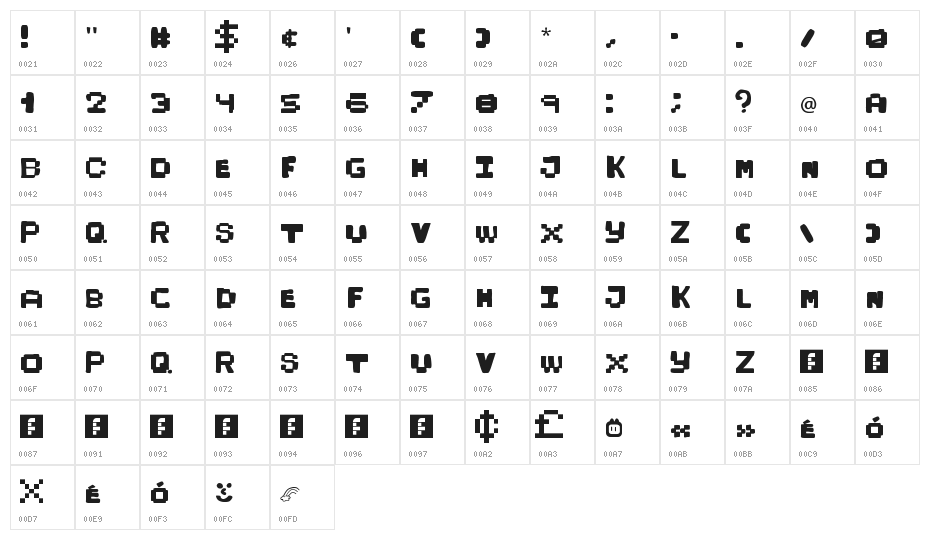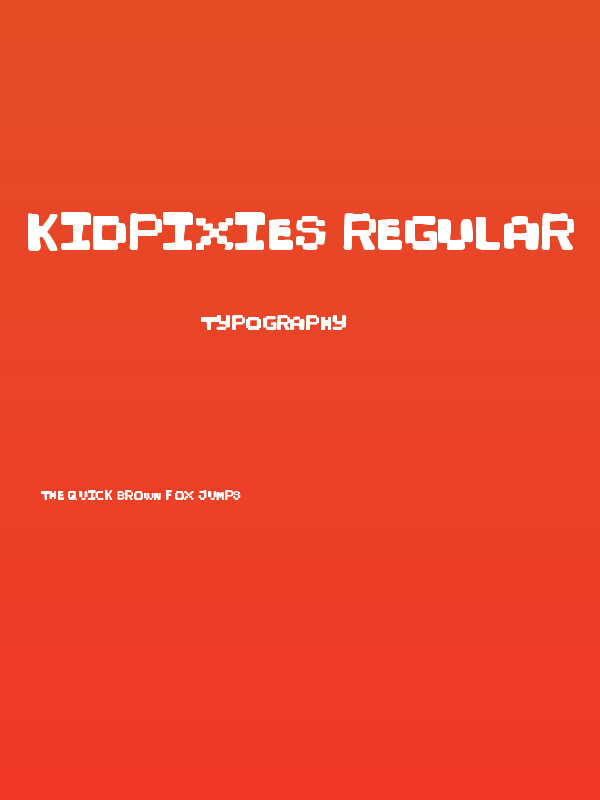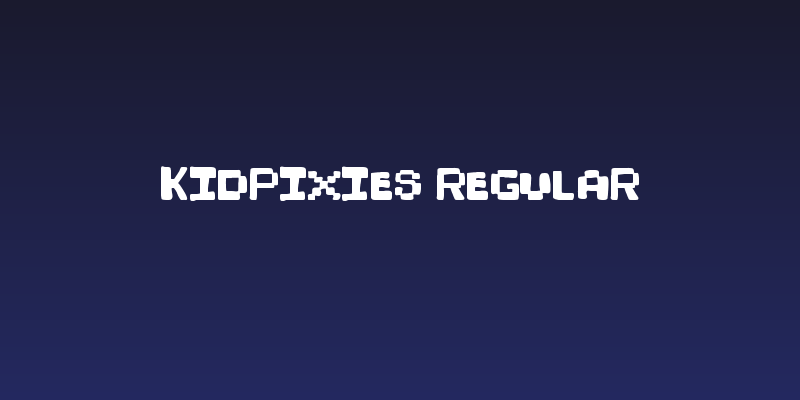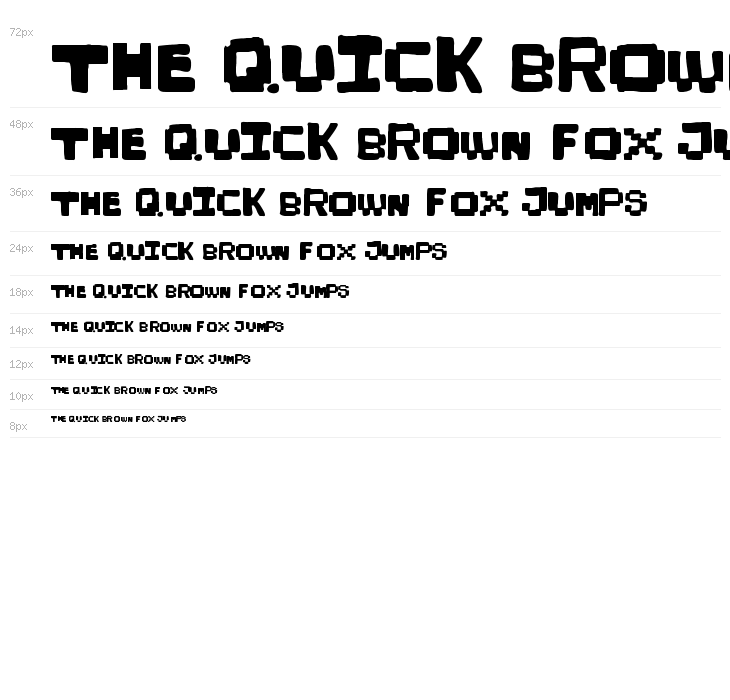
KidPixies Regular Font
KidPixies Regular Description
This playful and bold font features a unique, chunky design with irregular edges, giving it a whimsical and childlike appearance. The characters are heavily stylized, with a blocky structure that maintains readability while adding a fun, creative flair. The uppercase and lowercase letters share a consistent style, with rounded corners and a slightly uneven baseline that enhances its informal look. The numbers and special characters follow the same design principles, ensuring a cohesive appearance across all glyphs. This font is perfect for projects that require a touch of humor and creativity, such as children's books, playful branding, or educational materials.
| Proposed Projects | Ideal for children's books, playful branding, educational materials, and creative projects. |